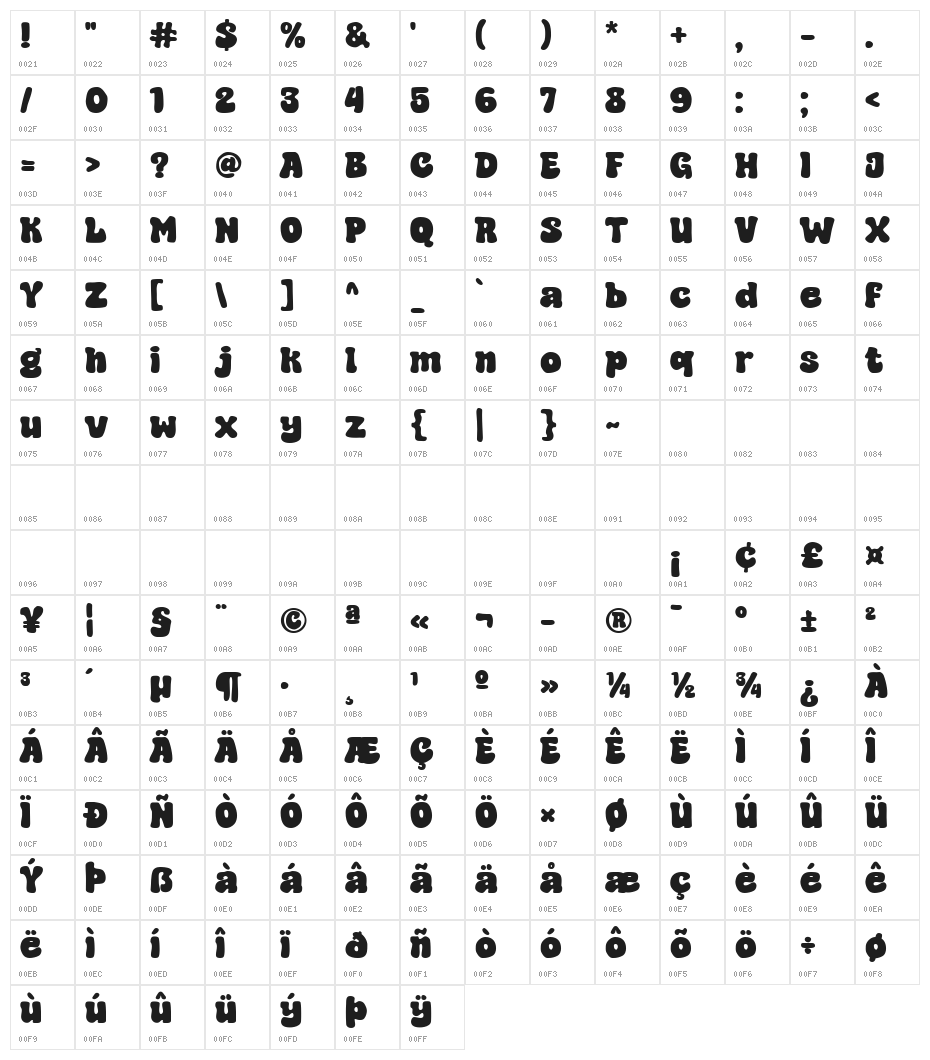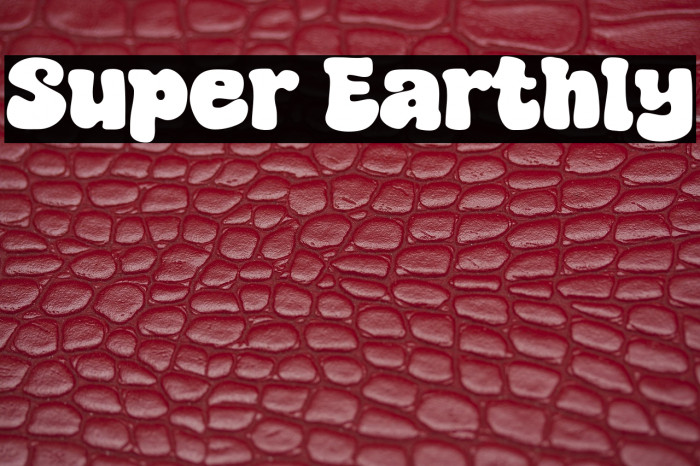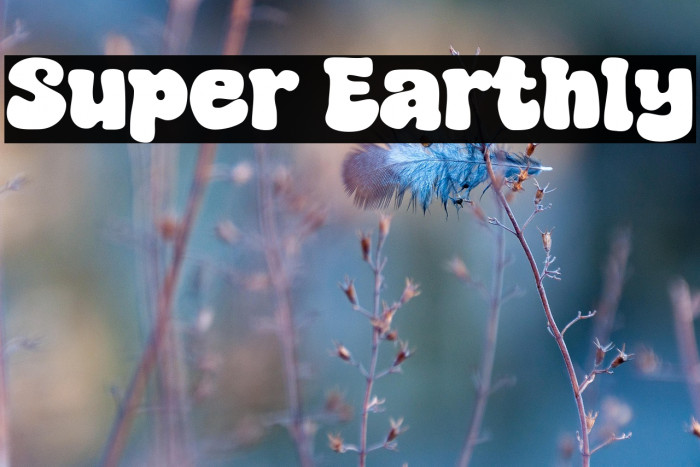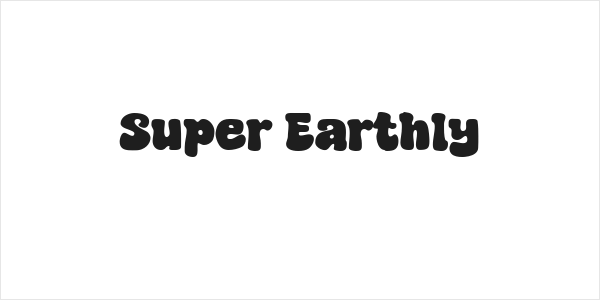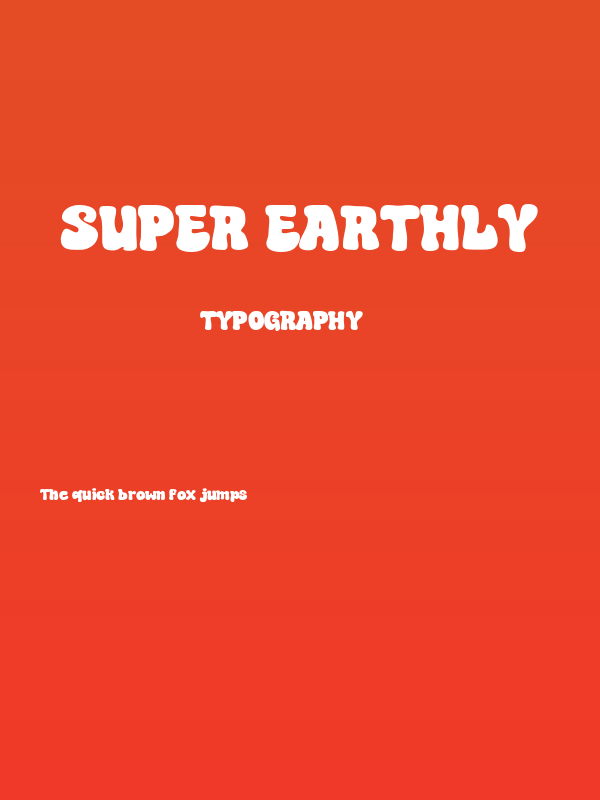
Super Earthly Font
Super Earthly Description
This font is characterized by its bold, playful, and highly decorative style. Each letter is crafted with a thick, rounded form that gives it a bubbly and cartoonish appearance. The strokes are consistent in width, contributing to a uniform look across all characters. The font exudes a sense of fun and whimsy, making it ideal for projects that aim to capture attention with a lively and informal tone. The characters are closely spaced, enhancing the compact and cohesive feel of the text. Its unique style makes it stand out, perfect for creative and unconventional designs.
| Overall Style | Playful and Whimsical |